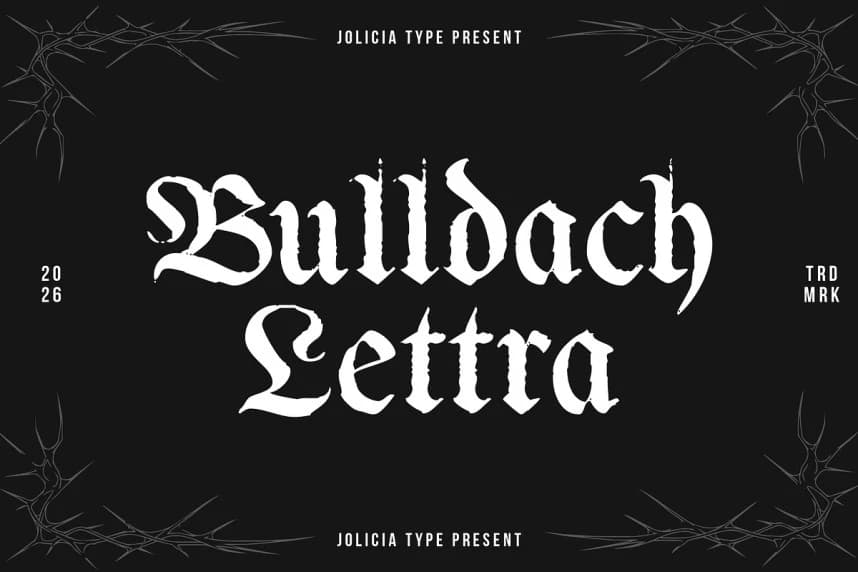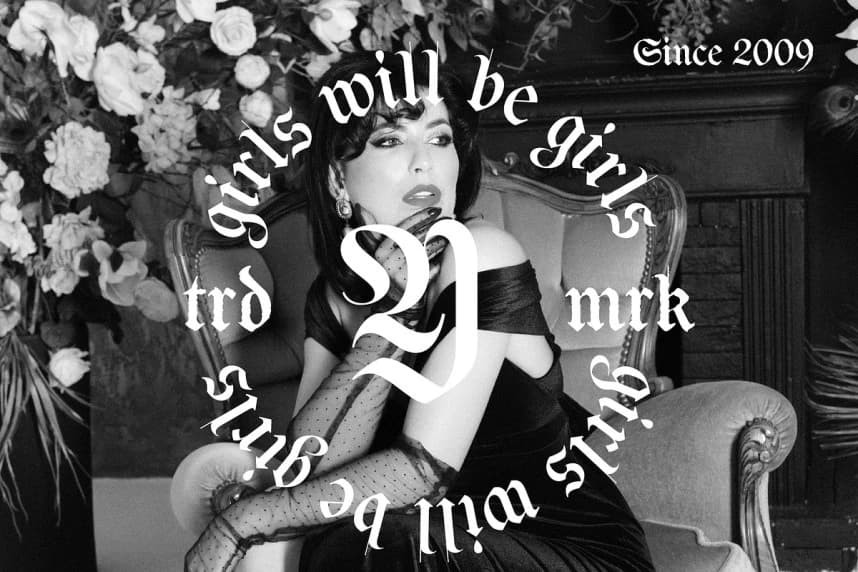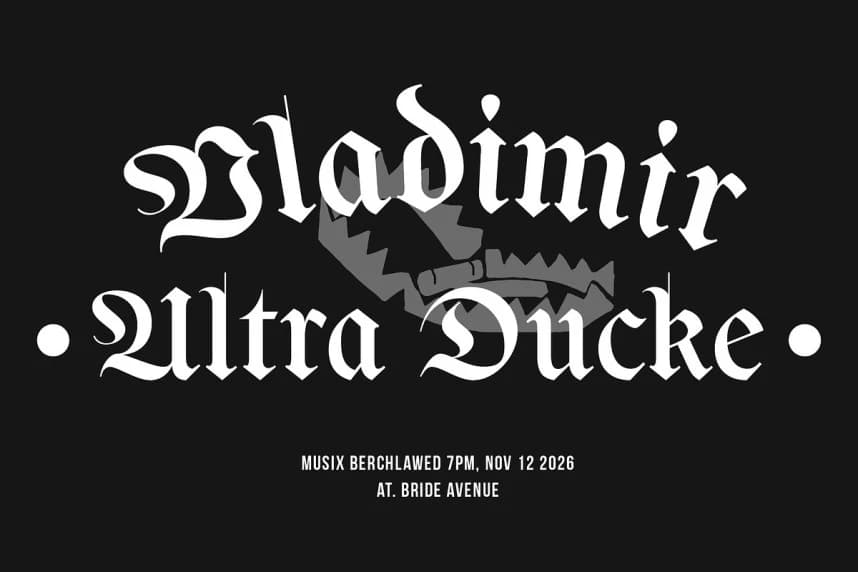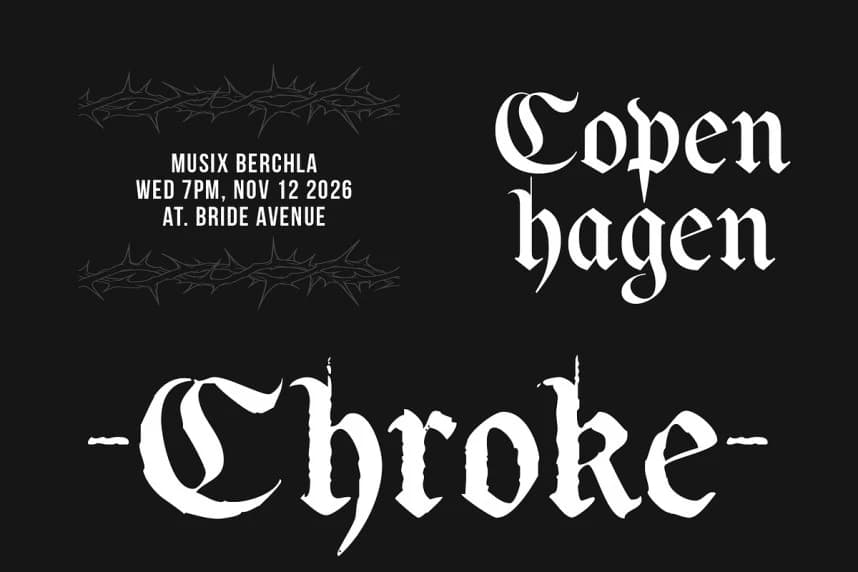
Bulldach Lettra Font
Bulldach Lettra Font is a blackletter typeface that embodies a bold, classic, and expressive character. Inspired by traditional gothic typography, it features sharp letterforms, strong contrasts, and intricate details that evoke a sense of history while maintaining a powerful visual presence.
Bulldach Lettra